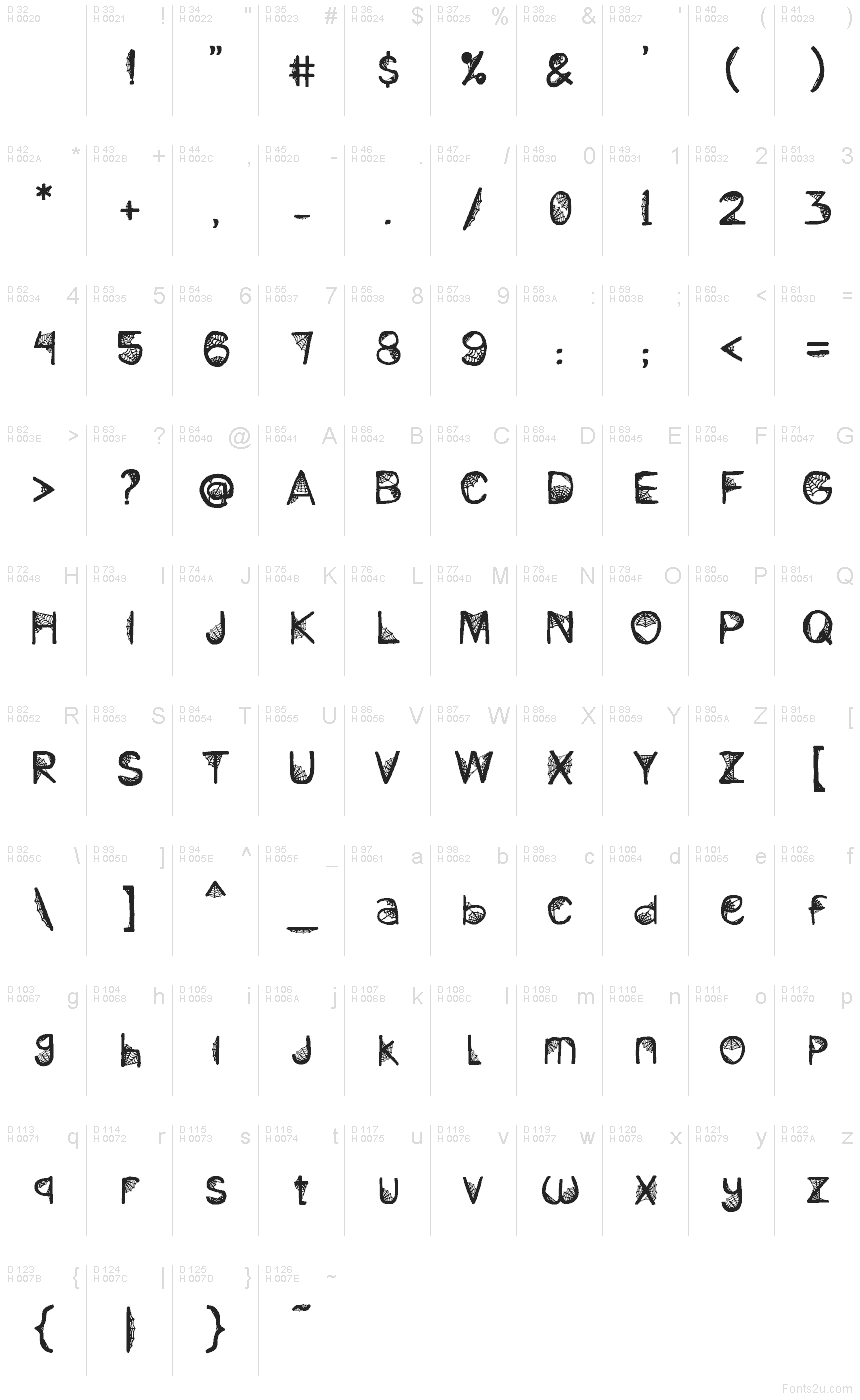
Midnight Spider
Midnight Spider font by PutraCetol Studio is a free Halloween display font. Its defining trick is the hand‑drawn webbing knit inside each letter—tangled, airy, and a little crunchy around the edges—so headlines look like they’ve been spun overnight. The shapes wobble in a friendly way, landing spooky without going gory, and the inky texture adds just enough grit to feel handmade.
Using Midnight Spider, your titles instantly crawl off the page for trick‑or‑treat posters, haunted house flyers, party invitations, spooky classroom activities, candy labels, YouTube thumbnails, and seasonal banners. This free font shines at big sizes; keep body copy in a plain sans serif for contrast and readability.